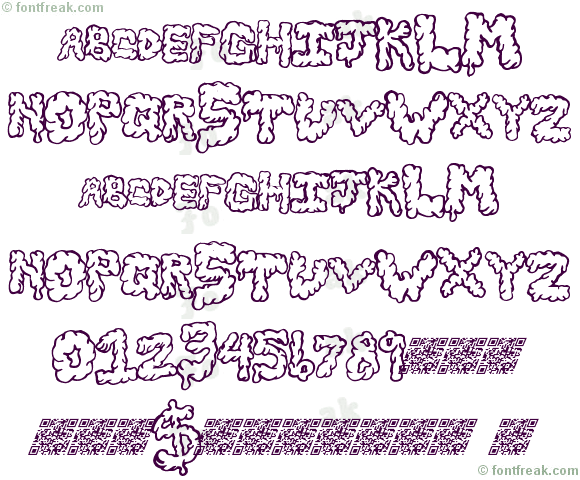
SlimeBawls
The SlimeBawls font by XEROGRAPHER FONTS is a distinctive display typeface that embodies a playful, whimsical aesthetic. Released in 2014, this font captures the essence of fun with its gooey, slime-like appearance, making it an ideal choice for projects that require a lighthearted touch. Characterized by its irregular stroke weight, SlimeBawls features a bubbly form that suggests movement and fluidity, while the playful spacing between letters enhances its unique style. The decorative elements, resembling drips and blobs, contribute to its overall charm, setting it apart from more traditional typefaces.
This font is perfect for a variety of creative applications. Graphic designers can leverage SlimeBawls for vibrant movie posters, where its unique look can attract attention and convey a sense of adventure. It's also suitable for children's book covers, where its fun and quirky nature can engage young readers. Restaurant menus that aim to create a casual, inviting atmosphere can benefit from the font's playful vibe, appealing to families and groups. Additionally, SlimeBawls can enhance branding for small businesses in the entertainment or food industry, making logos and promotional materials stand out.
What truly sets the SlimeBawls font apart is its ability to evoke emotions and tell a story through design. Its playful character and distinct visual style make it a memorable choice for any project, ensuring that your work stands out in a crowded marketplace. For those interested, the SlimeBawls font free download is readily available, inviting you to experiment with this engaging typeface.